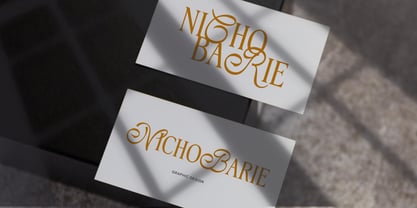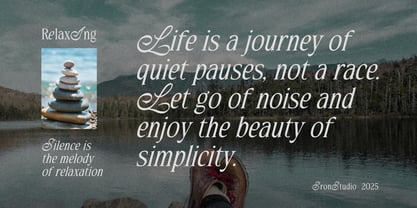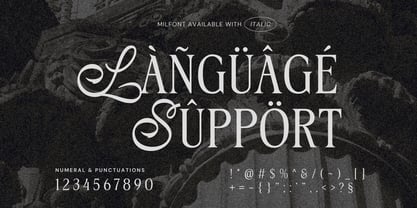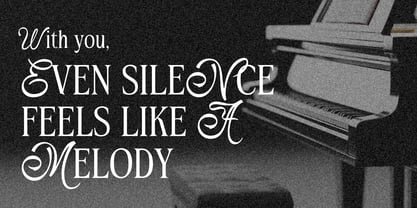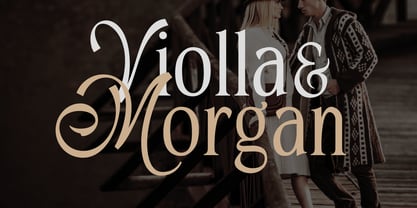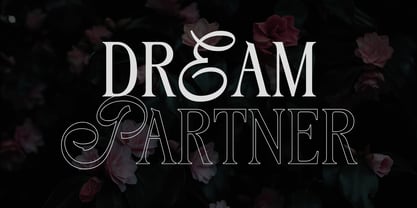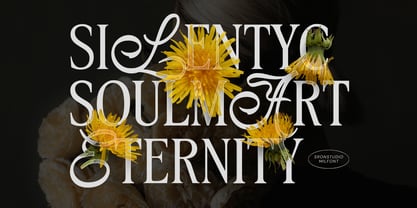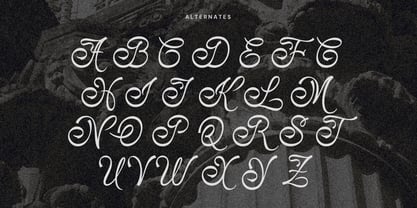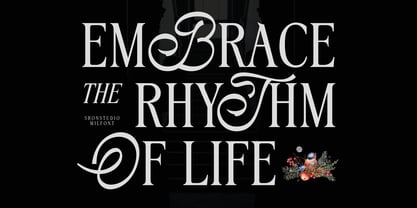
Milfont
by Sronstudio
The Milfont Font Family was designed by Muhamad Yusron Billah and published by Sronstudio. Milfont contains 2 styles and family package options. More about this family
Milfont is a sophisticated serif font combination designed to elevate your creative projects. With its seamless blend of classic elegance and modern versatility, Milfont is perfect for branding, editorial layouts, packaging, logos, and more. The pairing of contrasting serif styles creates a dynamic visual impact, making it ideal for both headlines and body text. Whether you’re aiming for timeless sophistication or a contemporary aesthetic, Milfont adapts beautifully to your design needs.
- Regular & Italic styles
- Alternate letters for added versatility
- Numerals & punctuation
- Multilingual support
Designers: Muhamad Yusron Billah
Foundry: Sronstudio